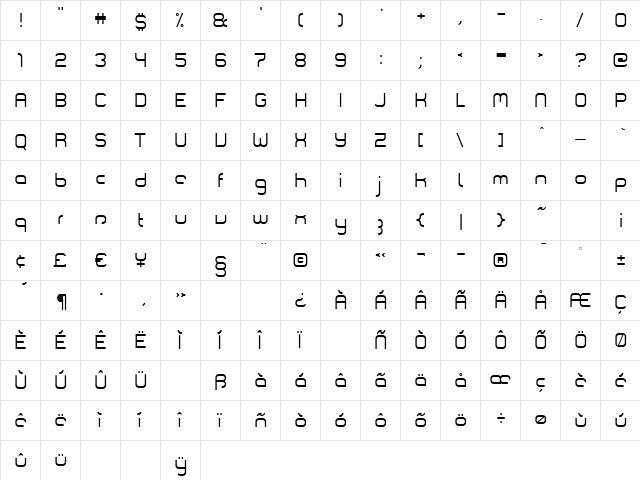
ComsatStealth Regular
Design Context for ComsatStealth Typeface
ComsatStealth is a composed and adaptable typeface that performs quietly and consistently across a wide range of design contexts.